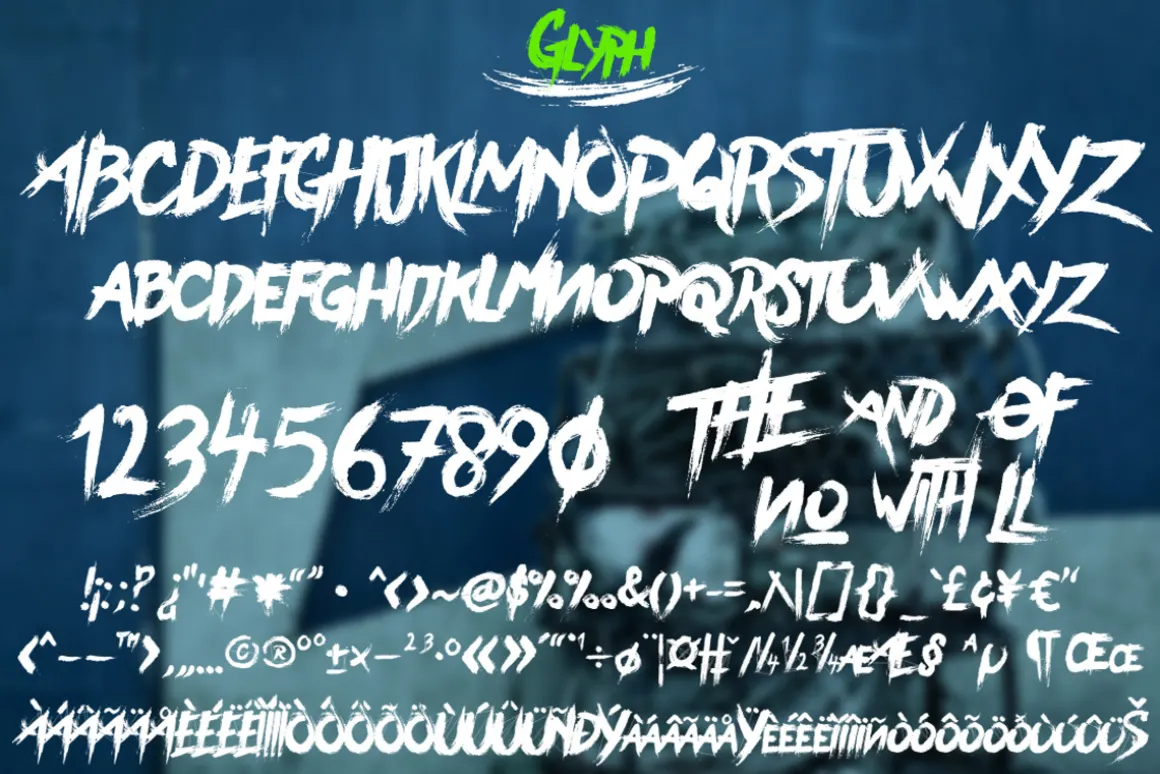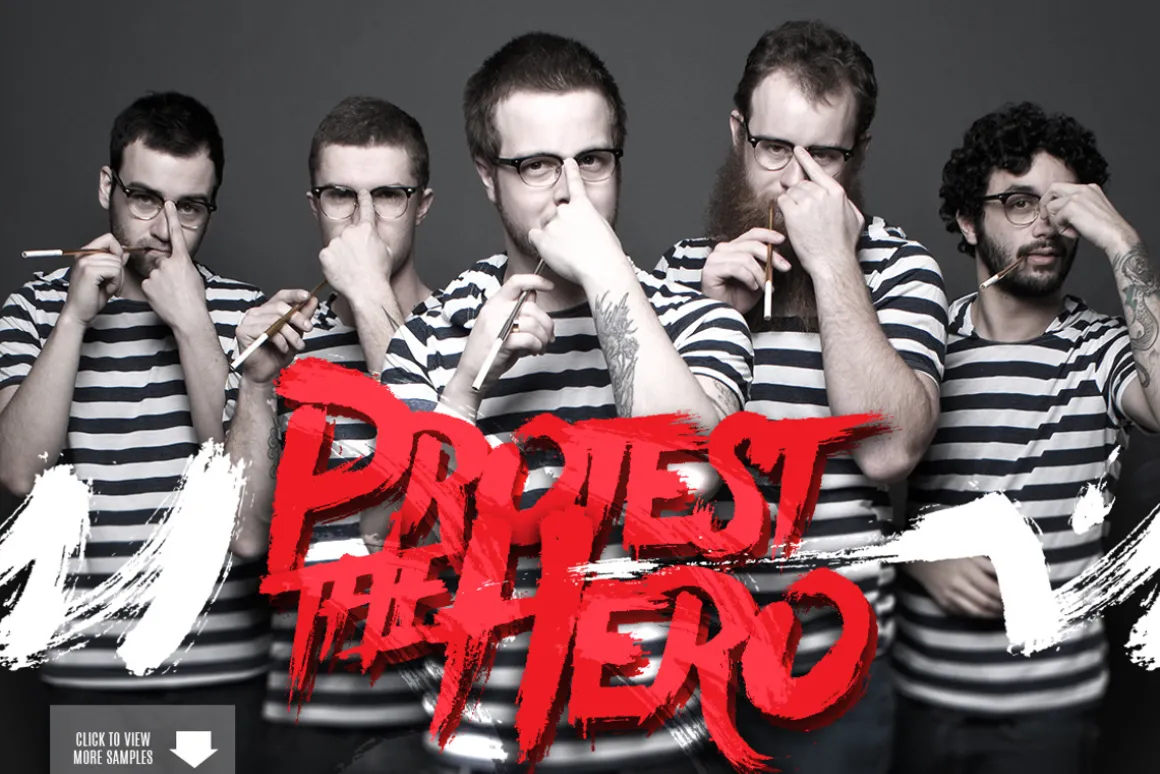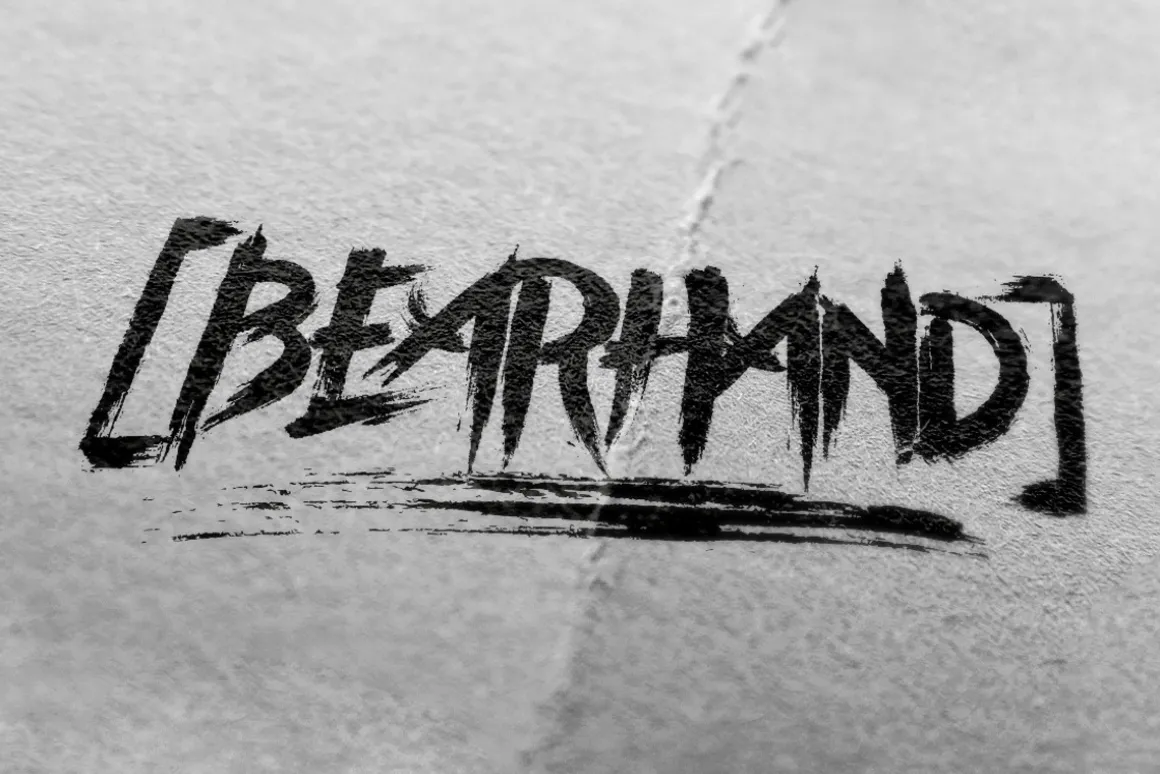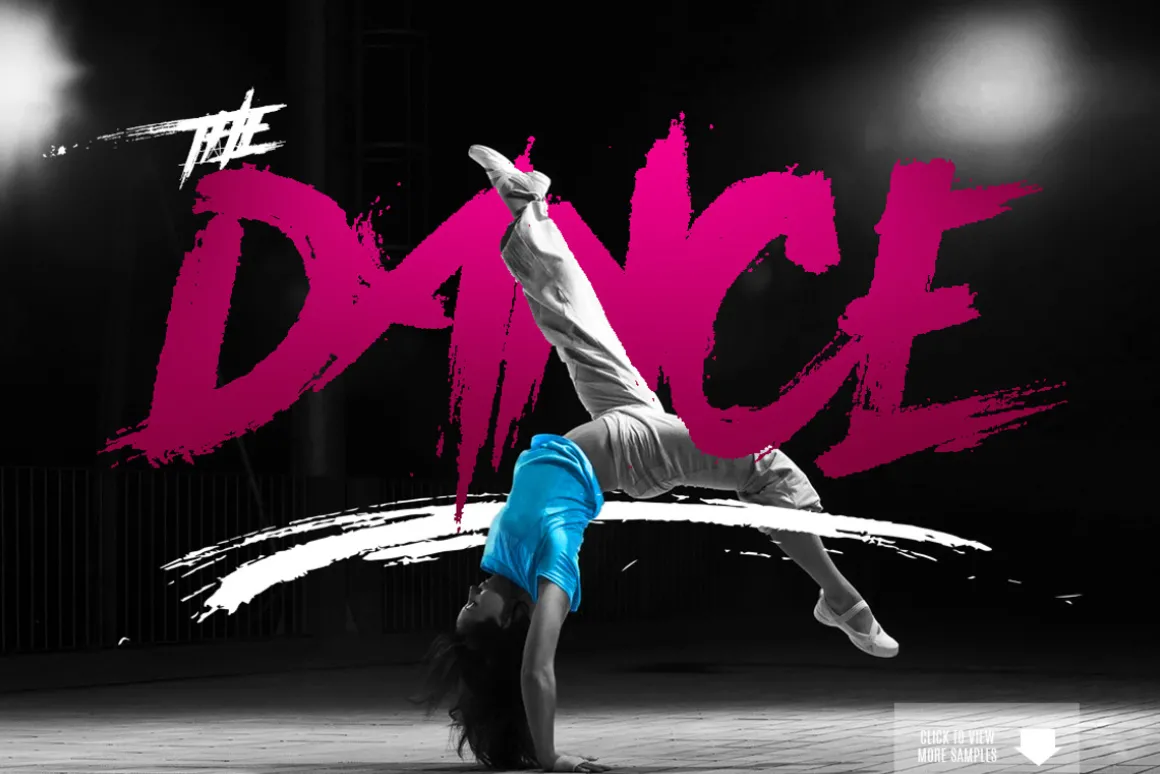
BeaHhand Typeface
BearHand is a 100% handmade typeface. Brought to give you a professional, creative, and bold looks for you designs.
Complete lower-case and upper-case alphabet, punctuation, symbols and multi language are included. Also bonus graphic pack to make your design even more awesome.
The typeface is great for invitations, logos, quotes, headings, signature, t-shirt, letterhead, signage, labels, news, posters, etc.